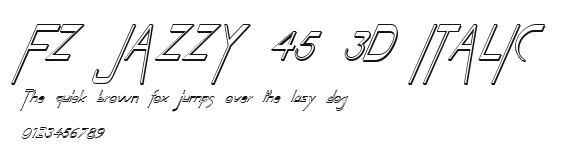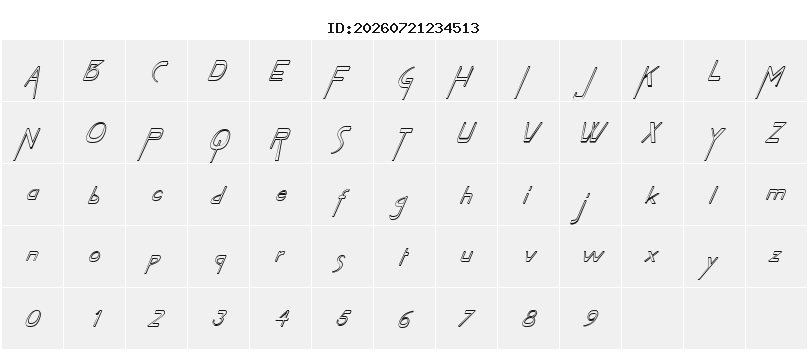
• Font Name: FZ JAZZY 45 3D ITALIC
• Font ID: FZ JAZZY 45 3D ITALIC
• Full Font Name: FZ JAZZY 45 3D ITALIC
About FZ JAZZY 45 3D ITALIC.ttf
FZ JAZZY 45 3D ITALIC.ttf is a modern, elegant sans-serif font designed for ultimate readability and visual harmony. Perfect for branding, headlines, web design, and print materials.